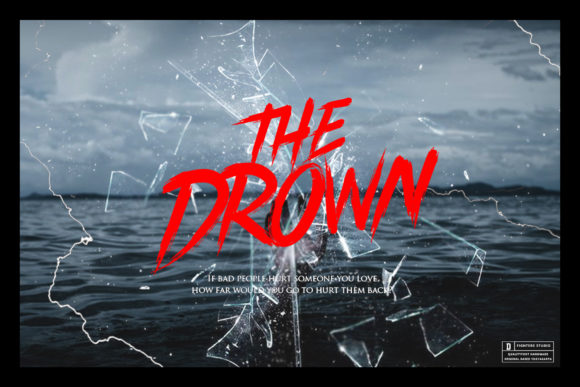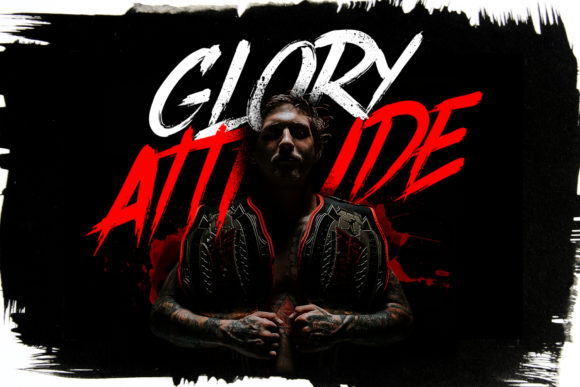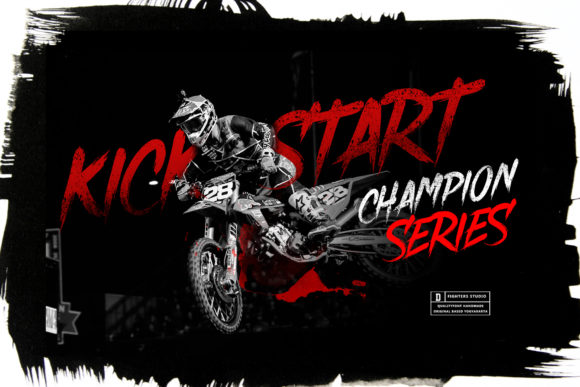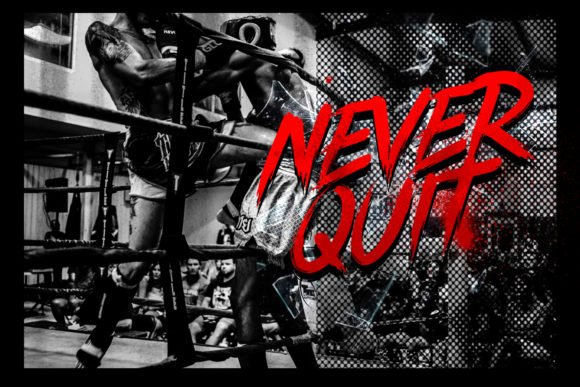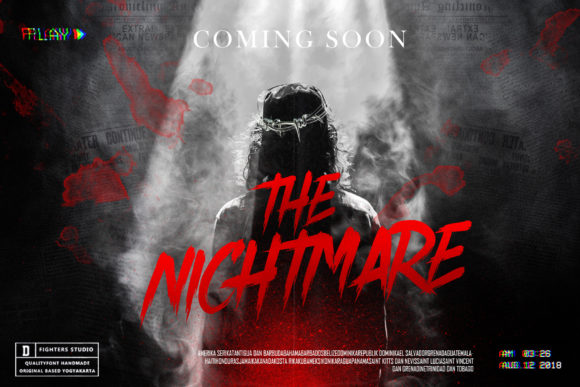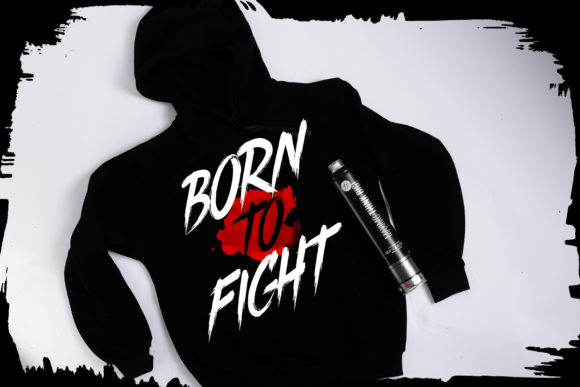
Crack Font: Unleash Your Creativity with this Unique Display Font
Are you tired of using the same old fonts in your designs? Look no further than Crack Font, a spectacular display font that’s sure to add a touch of quirkiness to your projects. With its unique style and versatility, Crack Font is incredibly fitting for a wide range of designs, from bold and edgy to playful and creative. The only limit is your imagination!
What is Crack Font?
Crack Font is a display font that’s designed to make a statement. Its distinctive style is characterized by bold, chunky letters with a slightly distressed look, giving it a rough-around-the-edges feel that’s perfect for designs that need a bit of attitude. Whether you’re working on a logo, poster, or social media graphic, Crack Font is sure to grab attention and leave a lasting impression.
Key Features of Crack Font
- Unique Style: Crack Font’s distinctive style sets it apart from other fonts. Its bold, chunky letters with a distressed look give it a one-of-a-kind feel that’s sure to add personality to your designs.
- Versatility: Despite its bold style, Crack Font is surprisingly versatile. It can be used for a wide range of designs, from bold and edgy to playful and creative.
- Easy to Read: Despite its chunky style, Crack Font is surprisingly easy to read, making it perfect for headlines, titles, and other display text.
- High-Quality Design: Crack Font is designed with high-quality craftsmanship in mind. Its crisp, clean lines and precise curves make it perfect for both digital and print designs.
Uses for Crack Font
Crack Font is a versatile font that can be used in a wide range of designs, including:
- Logos and Branding: Crack Font’s bold, attention-grabbing style makes it perfect for logos and branding materials that need to make a statement.
- Posters and Flyers: Crack Font’s distressed look gives it a rough-around-the-edges feel that’s perfect for posters and flyers that need to grab attention.
- Social Media Graphics: Crack Font’s bold style and easy readability make it perfect for social media graphics, including Facebook posts, Instagram stories, and more.
- Packaging Design: Crack Font’s unique style makes it perfect for packaging design, including labels, tags, and other materials that need to stand out.
Tips for Using Crack Font
Here are a few tips for getting the most out of Crack Font:
- Experiment with Colors: Crack Font’s distressed look pairs perfectly with bold, bright colors. Experiment with different color combinations to find the one that works best for your design.
- Play with Texture: Crack Font’s rough-around-the-edges feel pairs perfectly with texture. Try adding a texture or background to your design to give it an extra layer of depth.
- Mix and Match: Crack Font is a bold font, but that doesn’t mean you can’t mix and match it with other fonts. Try pairing it with a clean, simple font to create visual interest.
Crack Font is a unique and versatile display font that’s perfect for designers and crafters who want to add a touch of quirkiness to their projects. With its bold, attention-grabbing style and easy readability, Crack Font is incredibly fitting for a wide range of designs. So why settle for boring, generic fonts when you can unleash your creativity with Crack Font? The only limit is your imagination!